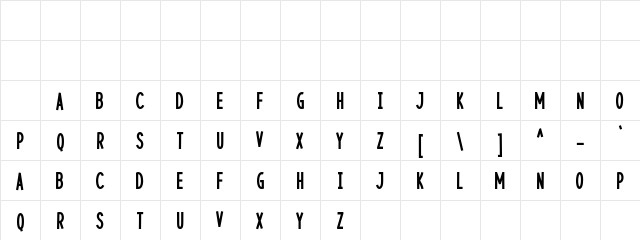
Complete Catlike Regular glyph index. Displaying only characters natively supported by Catlike Regular font.
Catlike is a composed and adaptable typeface that performs quietly and consistently across a wide range of design contexts.
Pro Tip: Use Catlike in both headline and body roles to test its range before committing to a single application.